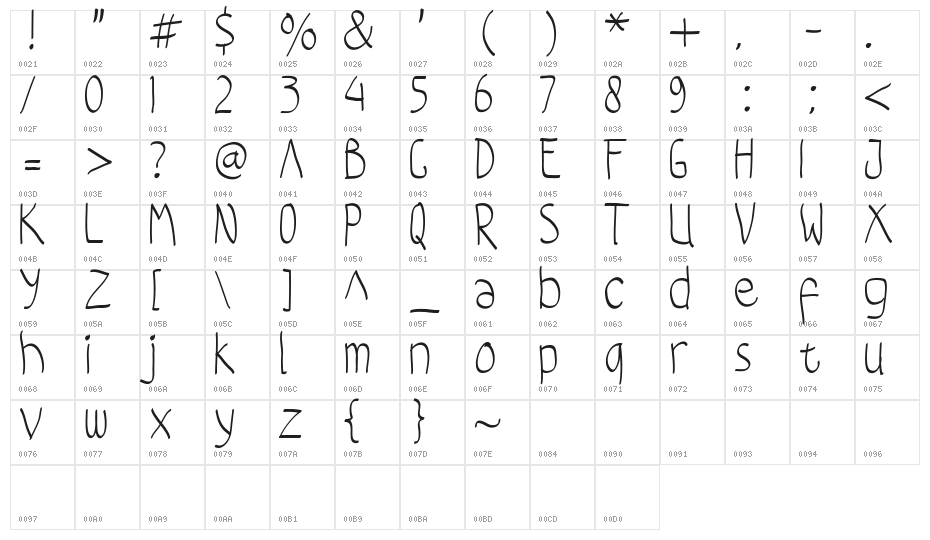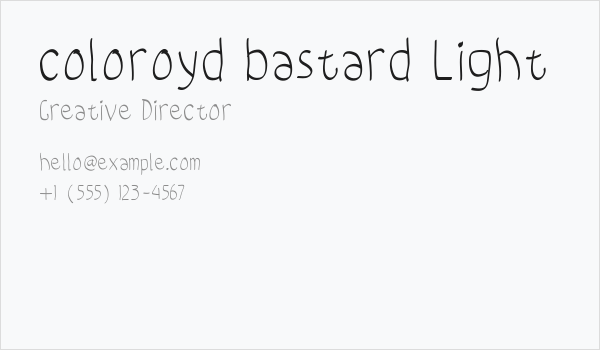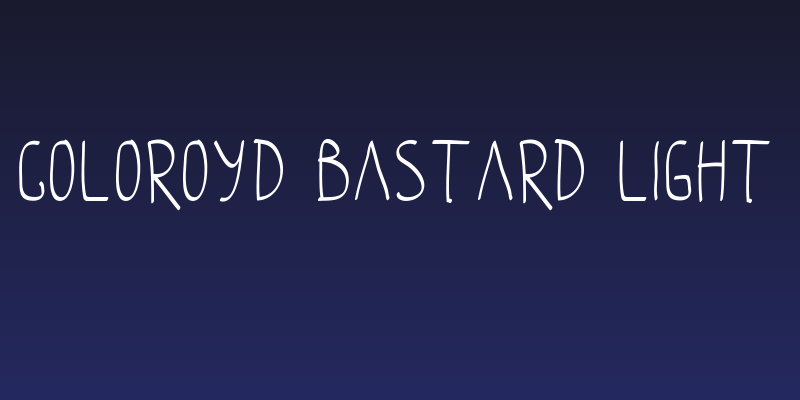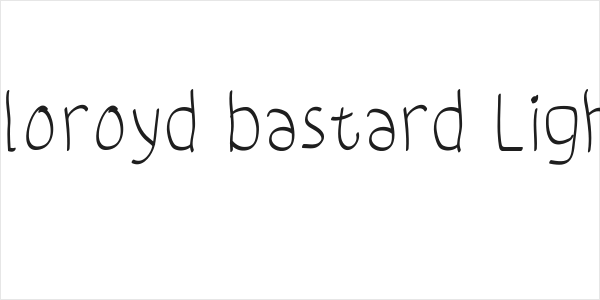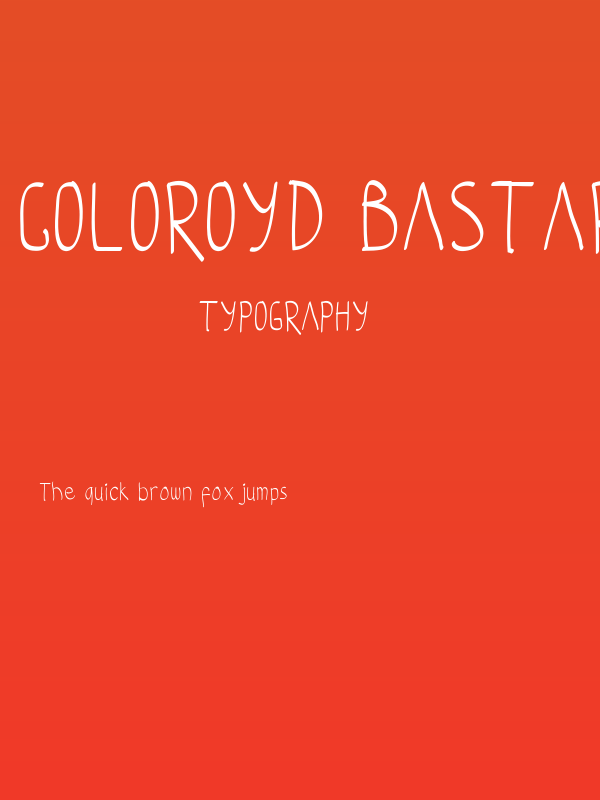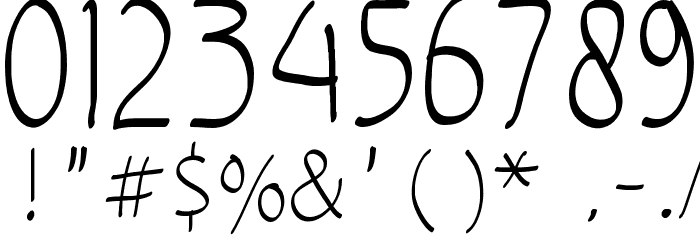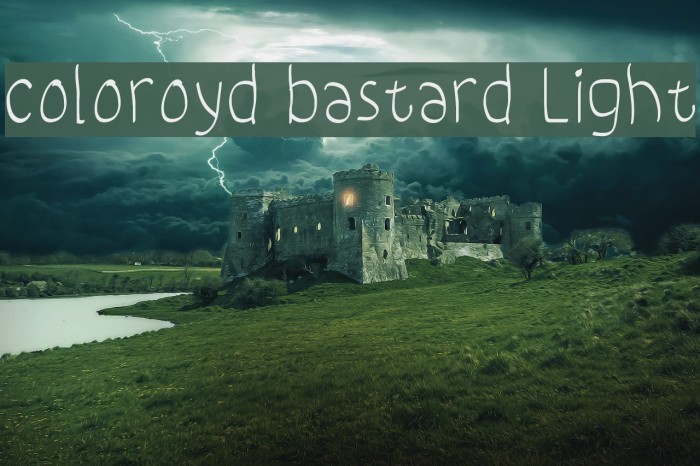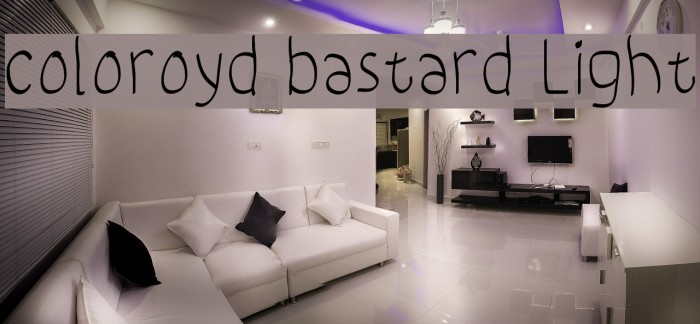
coloroyd bastard Light Font
coloroyd bastard Light Description
This font features a playful and quirky handwritten style, characterized by its irregular and slightly uneven strokes. The letters have a casual and informal appearance, with a mix of straight and curved lines that give it a unique personality. The uppercase and lowercase letters maintain a consistent style, while the numbers and special characters complement the overall design. Its light weight and narrow width make it suitable for projects that require a personal touch or a creative flair.
| Use Case | Logos, Headlines, Creative projects |
| Proposed Projects | Ideal for greeting cards, children's books, creative posters, and personal branding. |